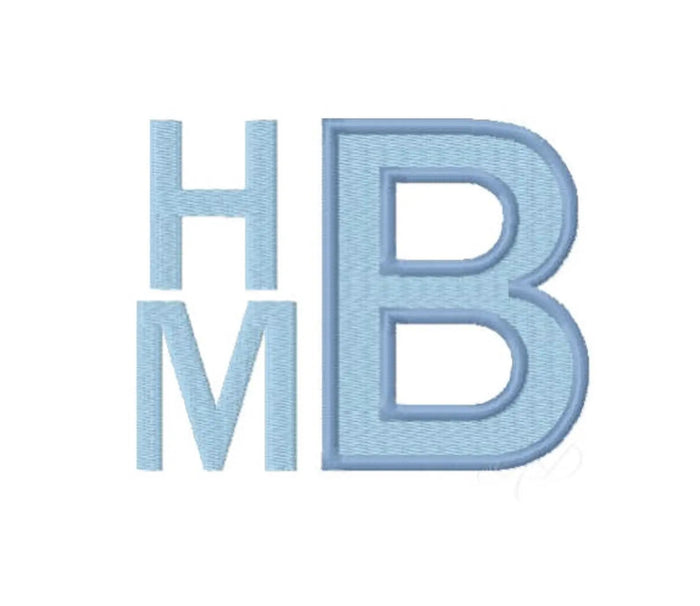
Grant Wide Two Tone Embroidery Font
The Grant Wide Two Tone Embroidery Font is perfect for crafters looking to add a unique touch to their projects. This font features a wider version of our popular Grant font, complete with a bold satin stitch outline in contrasting colors. With uppercase letters and numbers 0-9, it provides endless opportunities for customization.